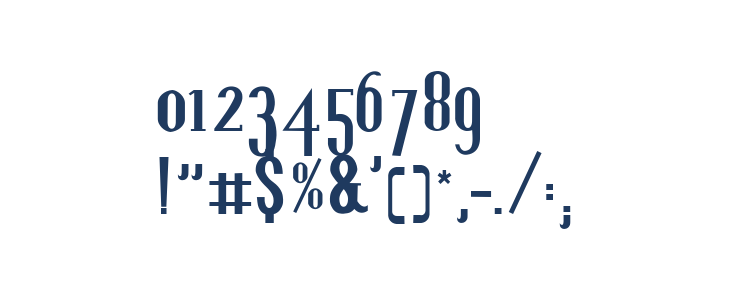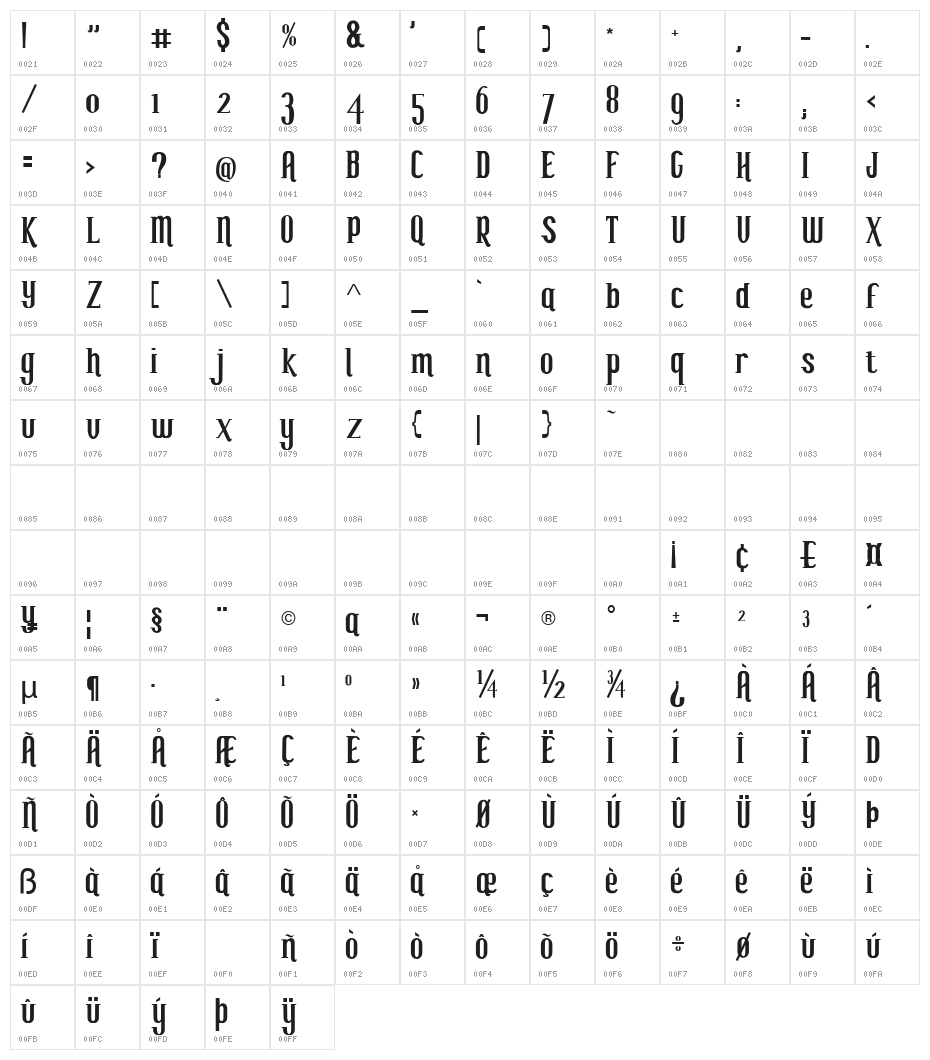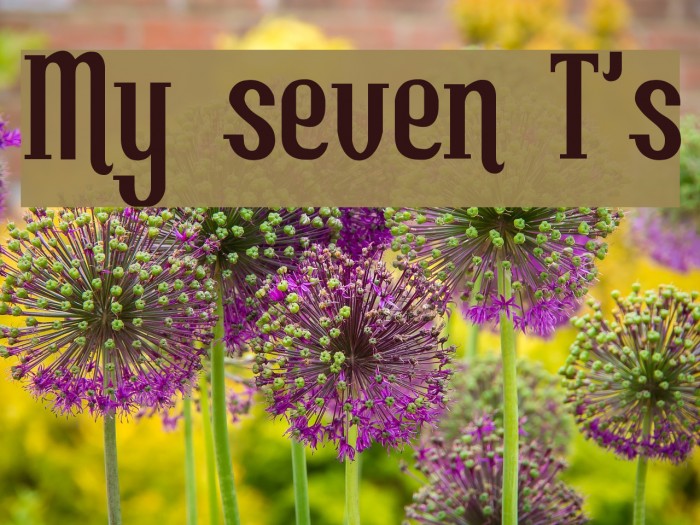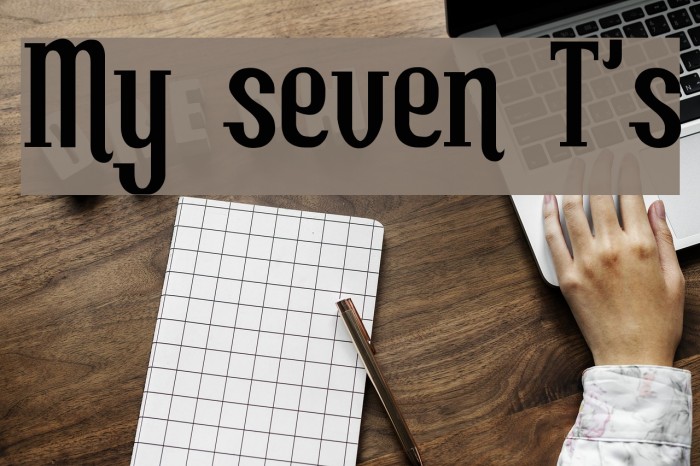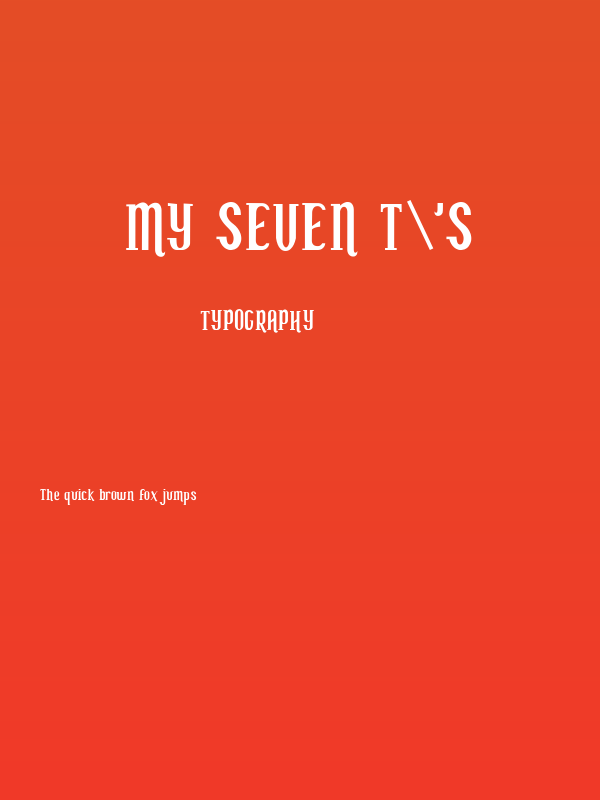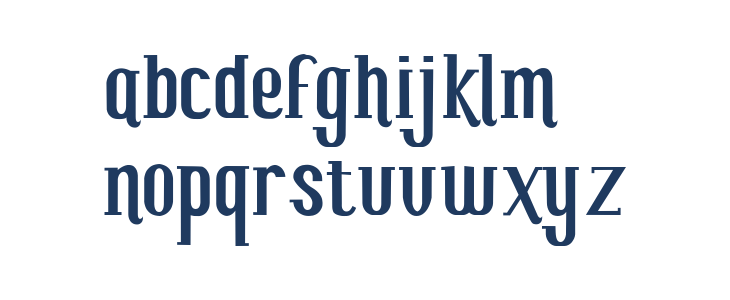
My seven T's Font
My seven T's Description
This font features a bold and striking design with a distinct vintage flair. The uppercase letters are tall and narrow, with sharp serifs that give them a strong presence. The lowercase letters maintain a consistent style, with unique curves and angles that add character. The numerals are equally bold, with a slightly condensed appearance that complements the overall aesthetic. Special characters are well-integrated, maintaining the font's cohesive look. The font's high contrast between thick and thin strokes enhances its readability while adding to its decorative appeal.
| Proposed Projects | Ideal for vintage-themed posters, branding, headlines, and editorial design. |